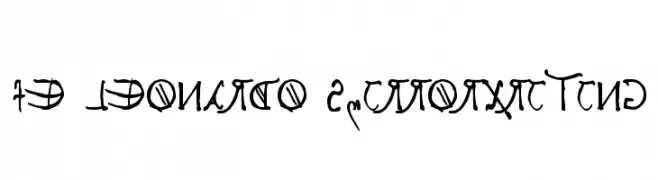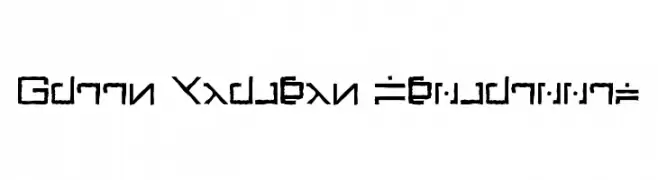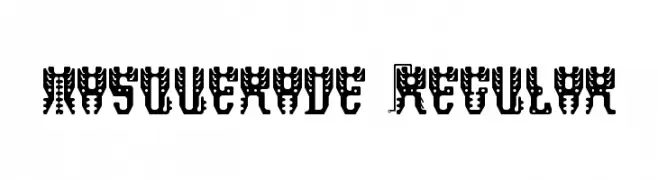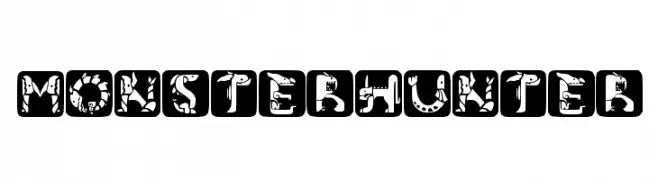
A bold, decorative font with fantasy-themed elements and intricate designs.
A bold, jagged font with a distressed, horror-themed design.
A distressed, futuristic font with an alien-like, textured appearance.
A mirror writing font with an artistic, vintage flair.